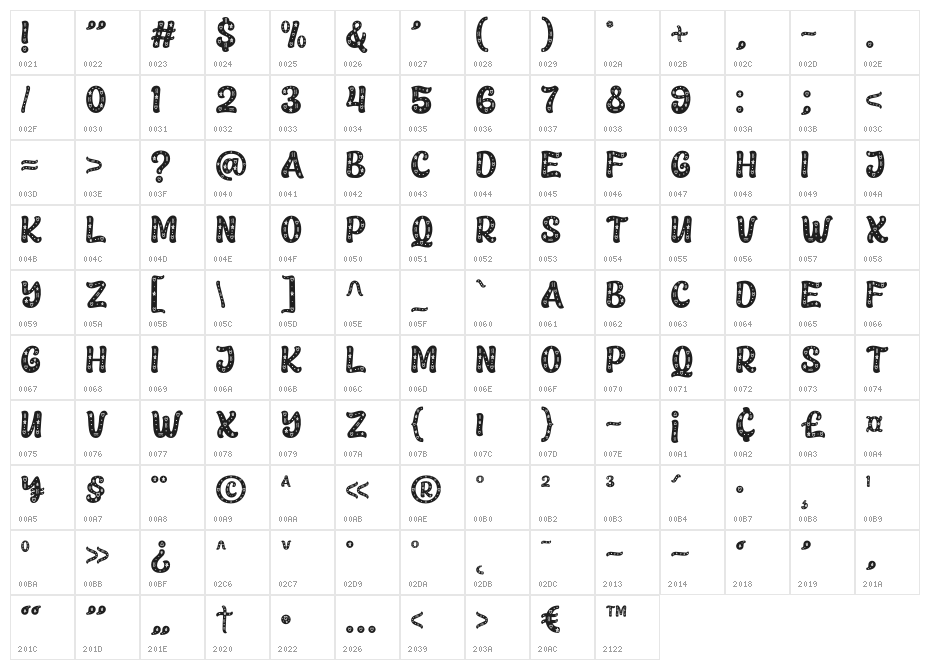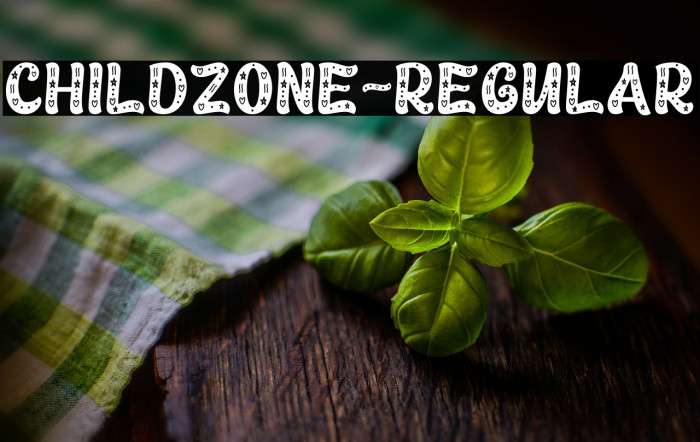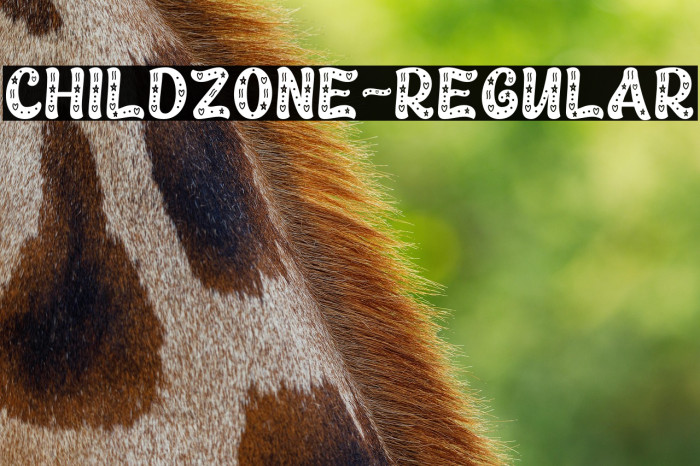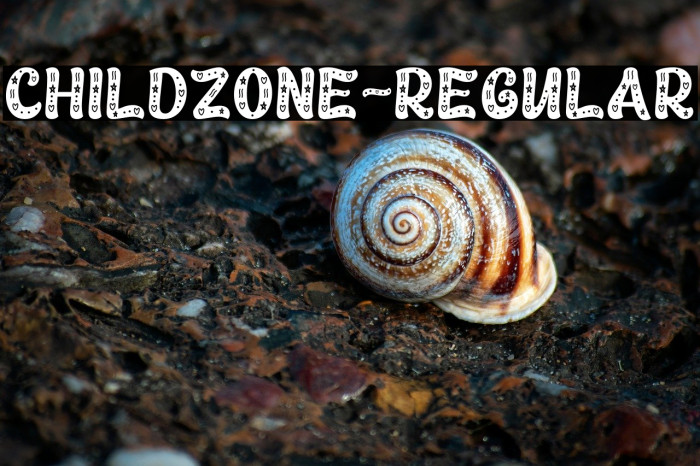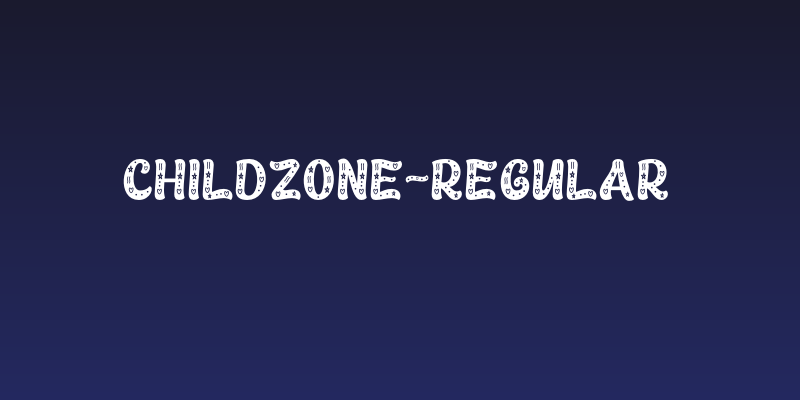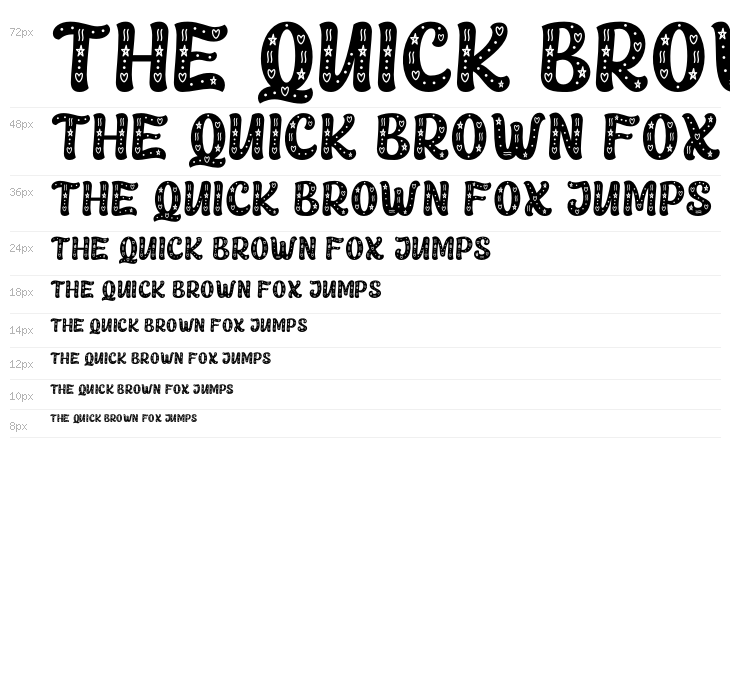
Childzone-Regular Font
Childzone-Regular Description
This playful and whimsical font features bold, rounded characters adorned with charming decorative elements like stars and hearts. The letters have a consistent thickness, creating a uniform appearance that is both eye-catching and fun. The design is reminiscent of a child's drawing, with a sense of innocence and creativity. Each character is distinct, yet they all share a cohesive style that makes the font suitable for projects aimed at children or those that require a lighthearted touch. The numbers and special characters maintain the same playful theme, ensuring a consistent look across all text elements.
| Overall Style | Playful, Whimsical |
| Use Case | Headlines, Logos, Children's materials |
| Proposed Projects | Ideal for children's books, toy packaging, birthday invitations, and playful branding. |